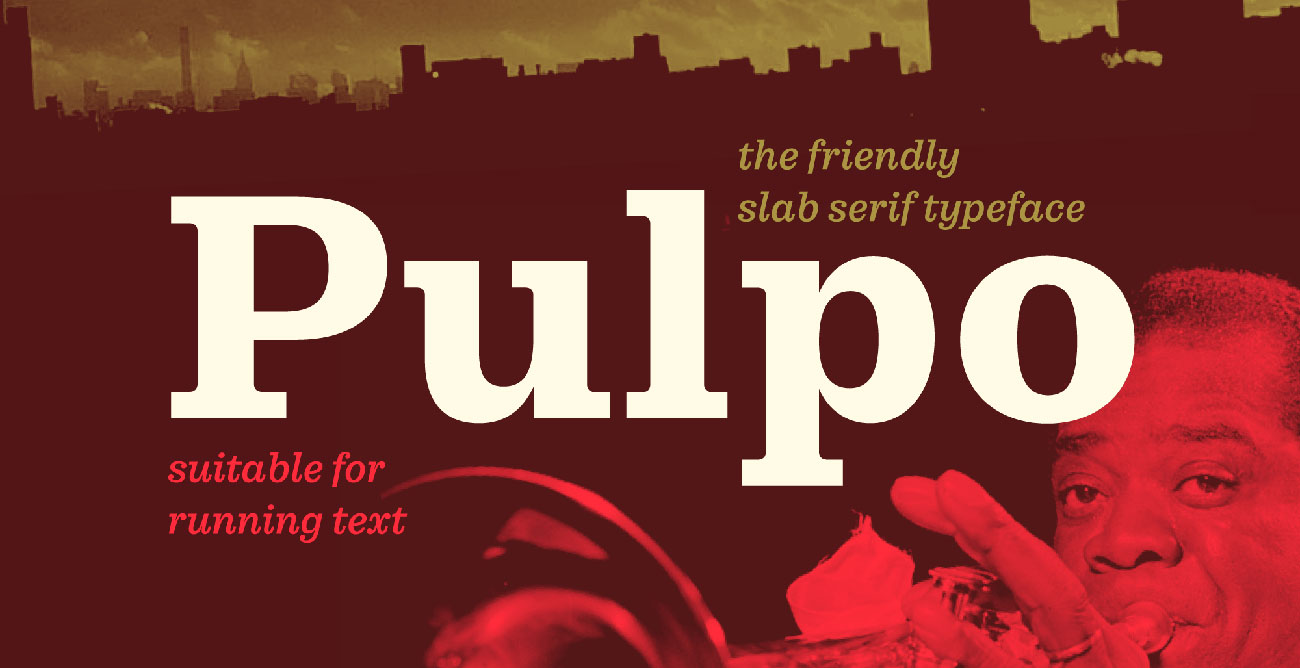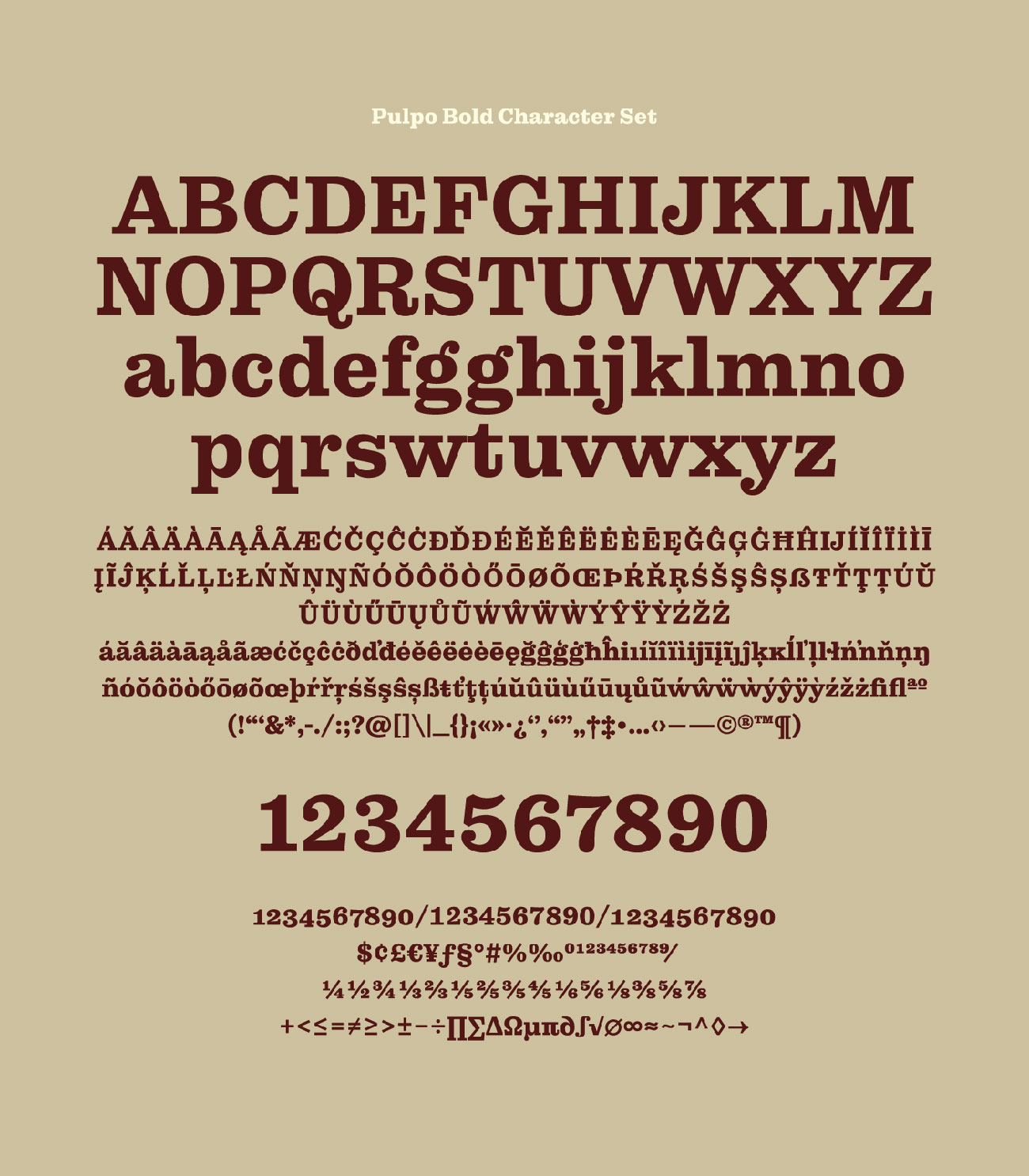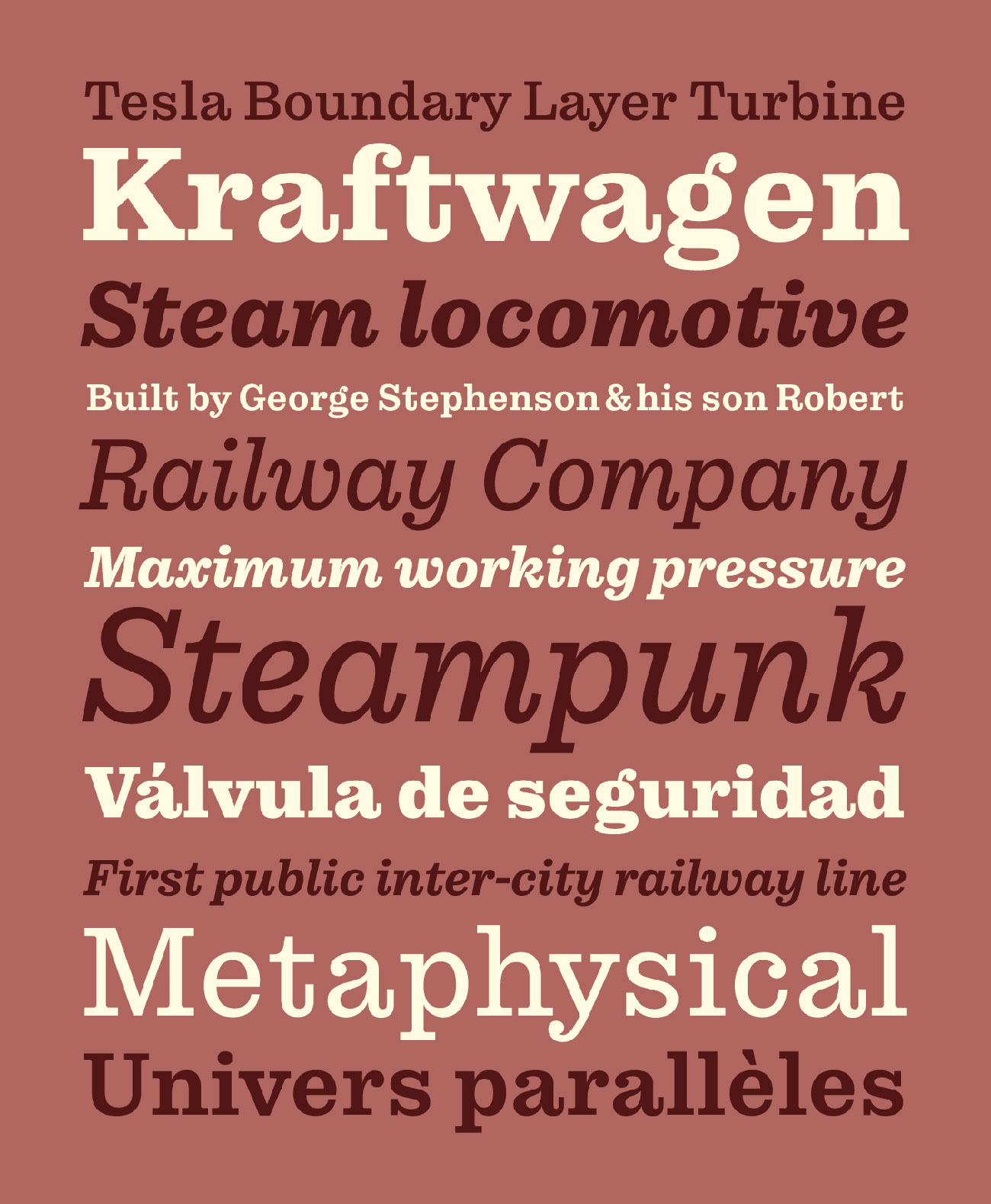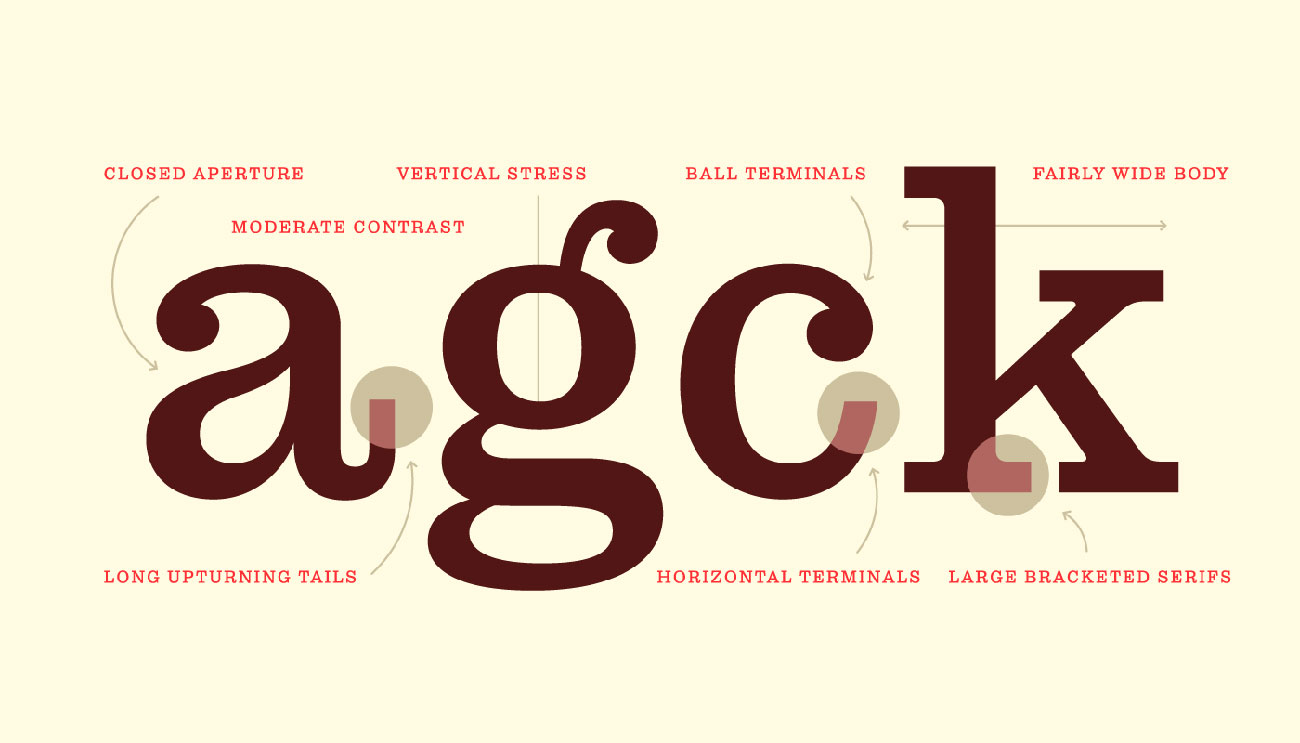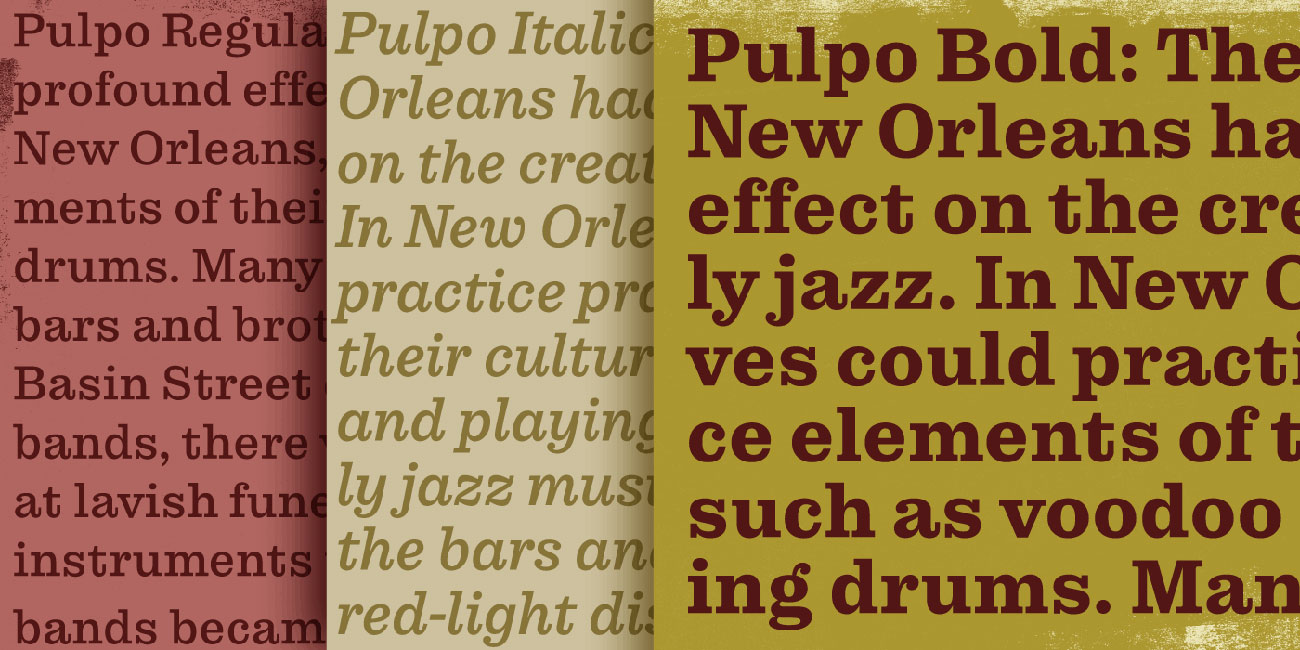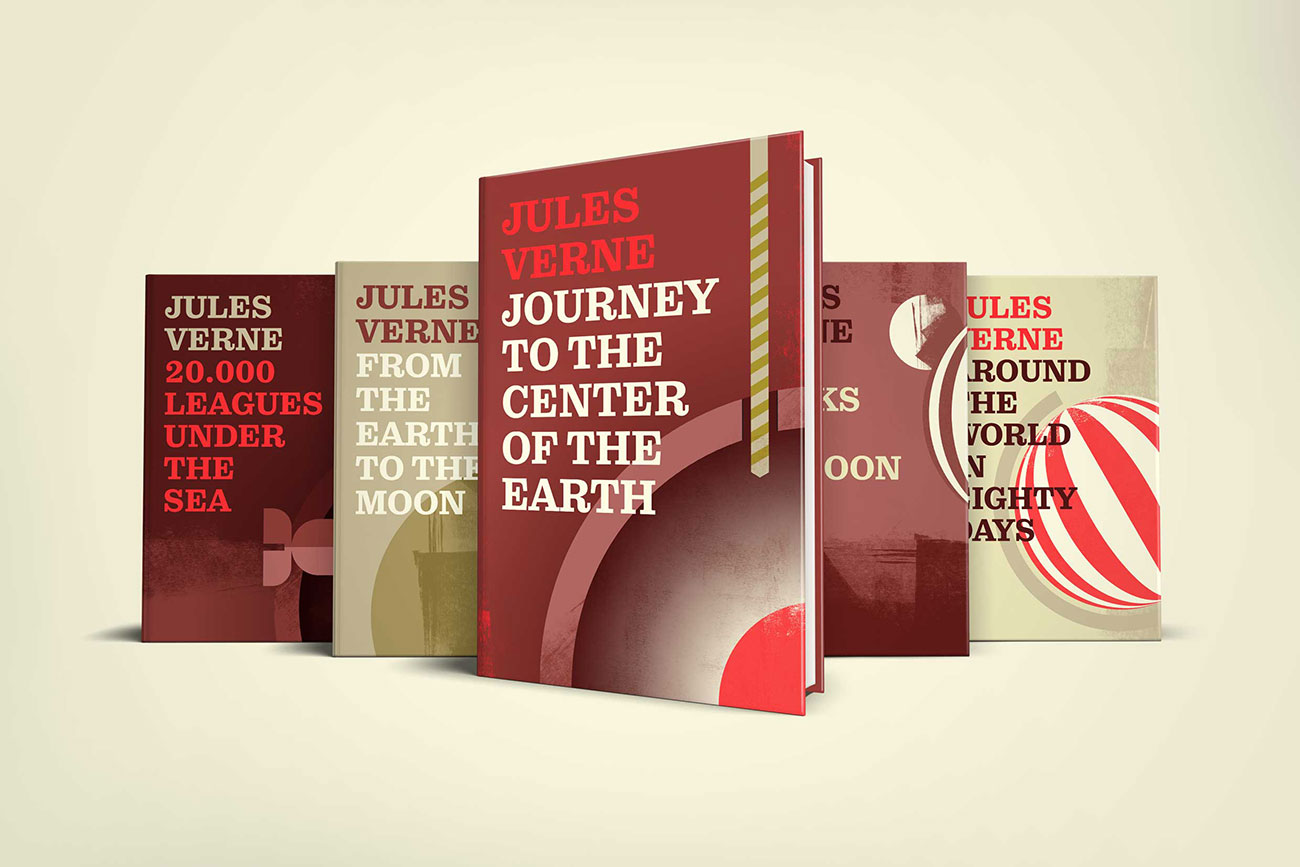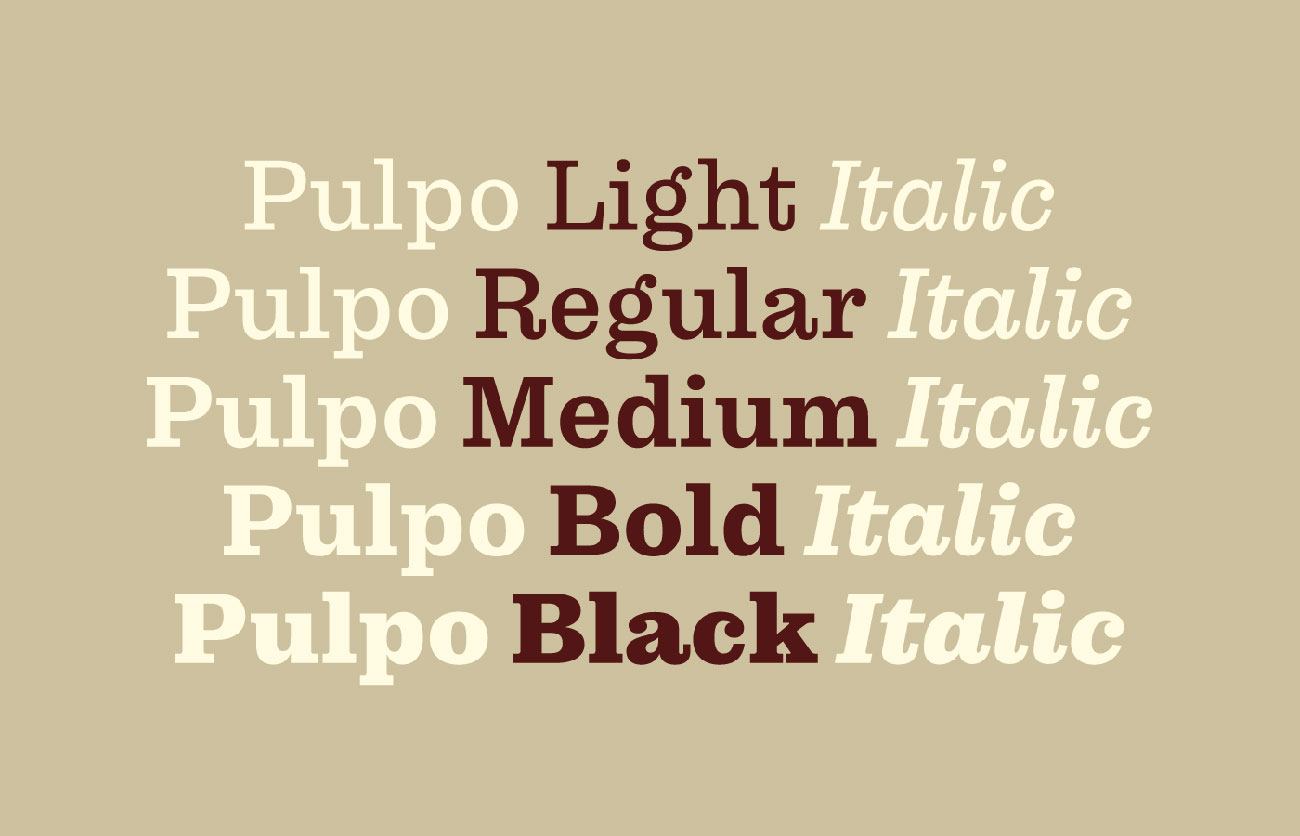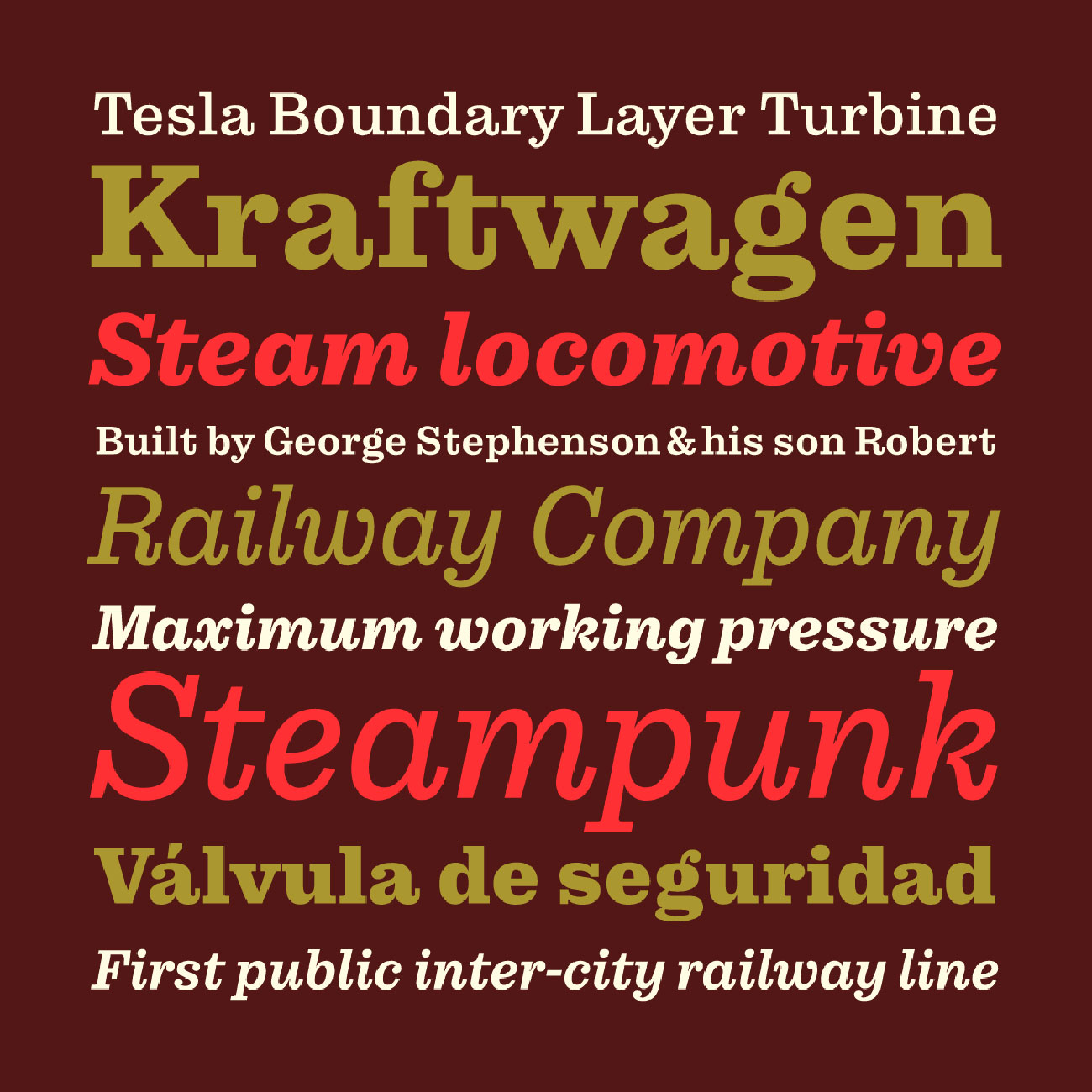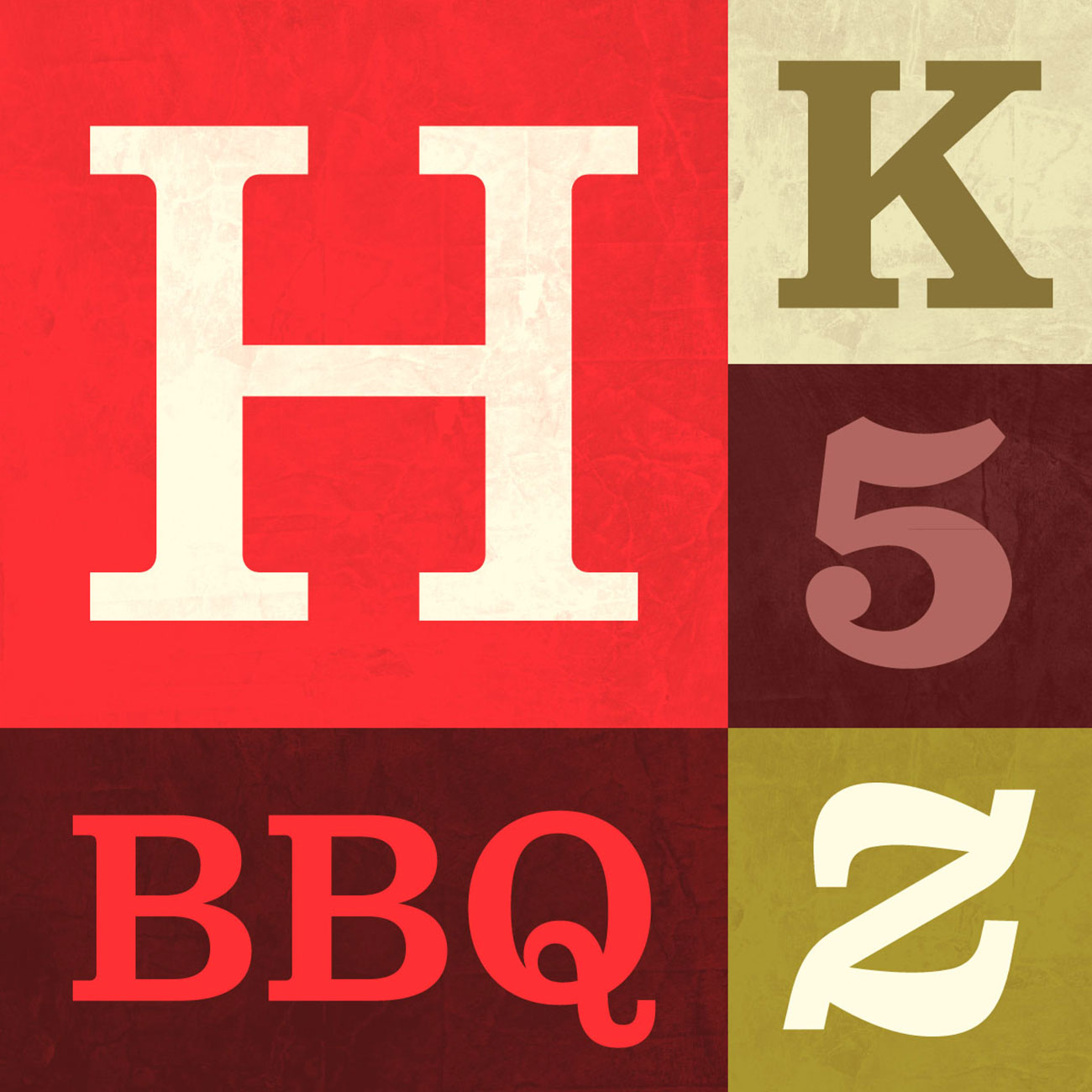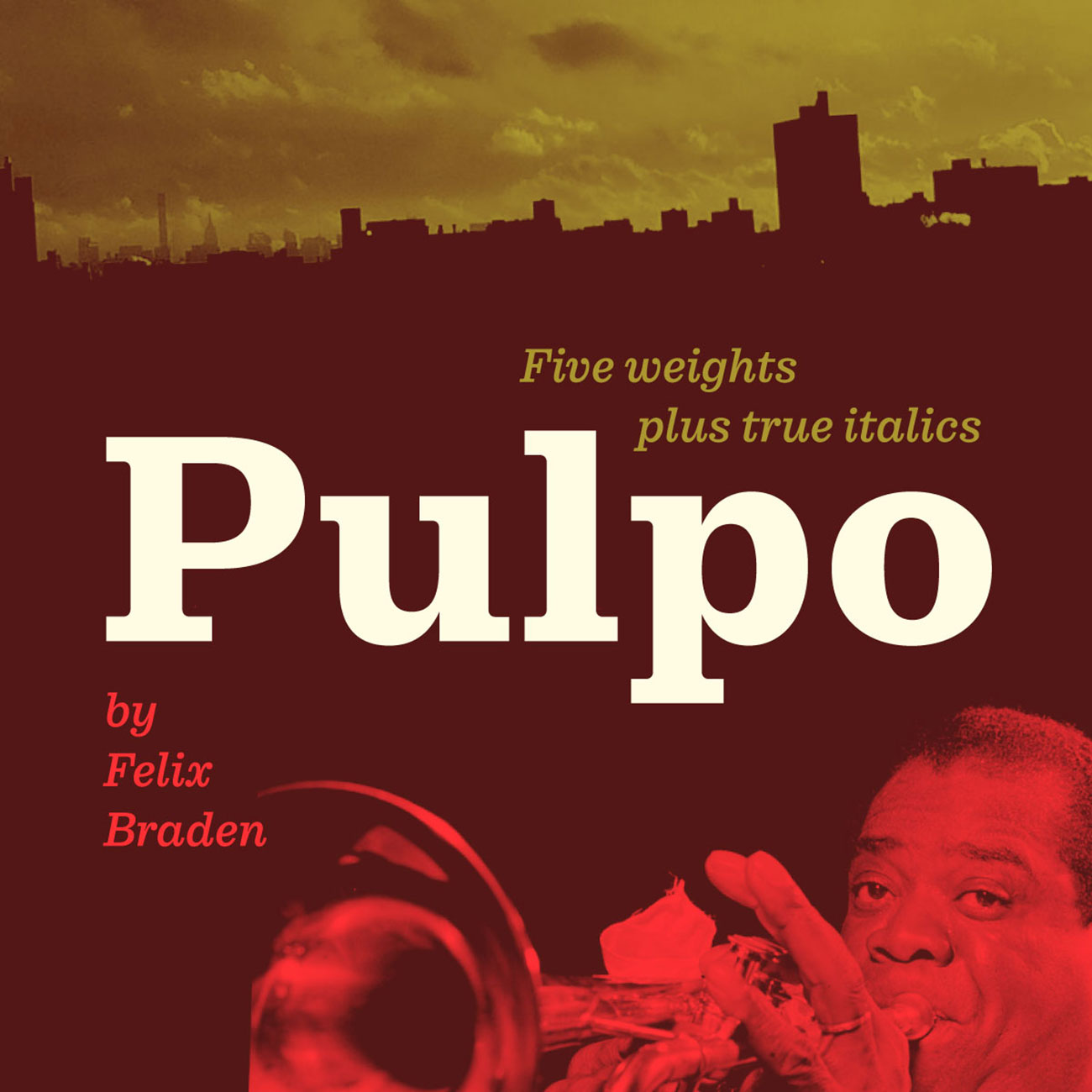
Felix Braden
Pulpo Typeface
Felix Braden designed Pulpo - a friendly and comfortable looking Clarendon ideally suited for editorial, advertising and packaging as well as web and app design. The family has 10 styles, ranging from Light to Black.